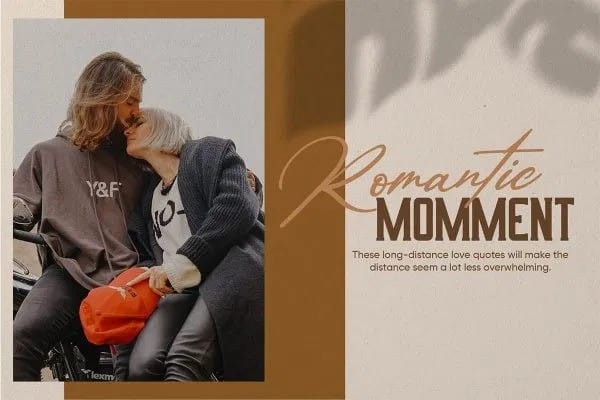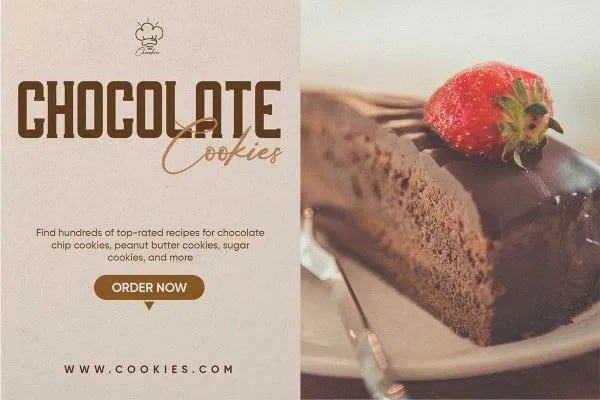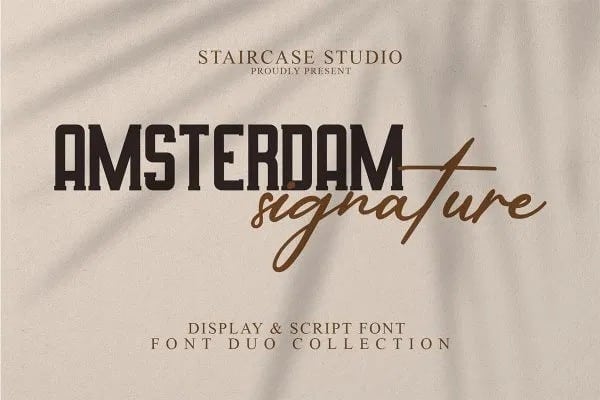
Amsterdam Font Duo are cute scrapbooking fonts ! Get inspired by their unique feel, and add a warm and friendly feel to any design idea.
Amsterdam Font Duo come in lowercase and uppercase, numbers, special characters & multilingual characters. You can see all the glyphs displayed in the preview images above.